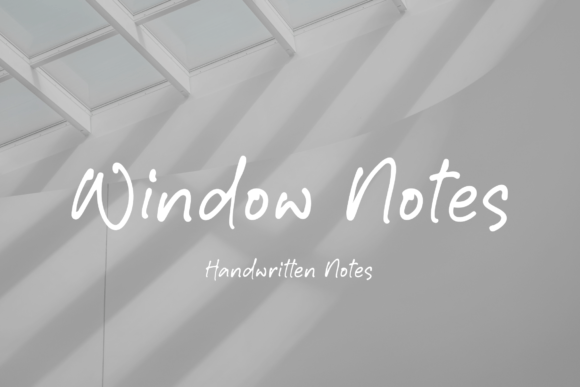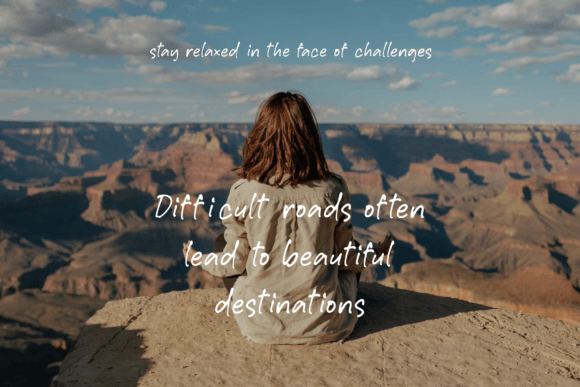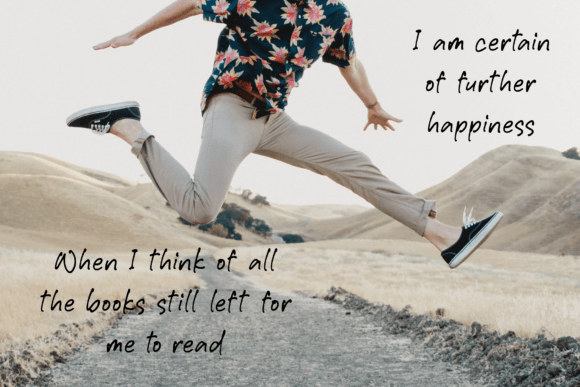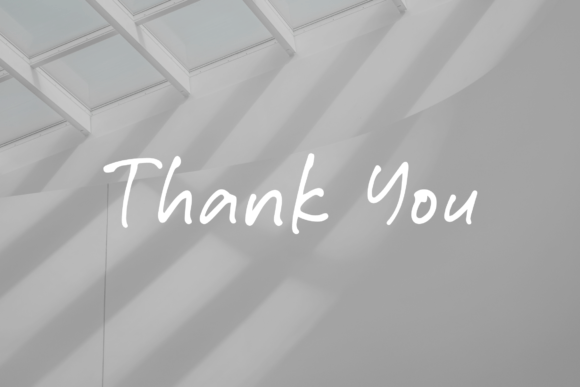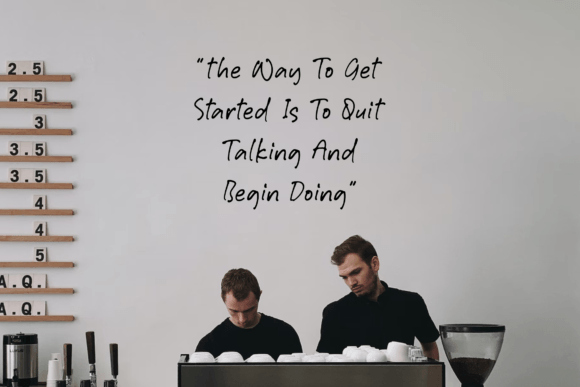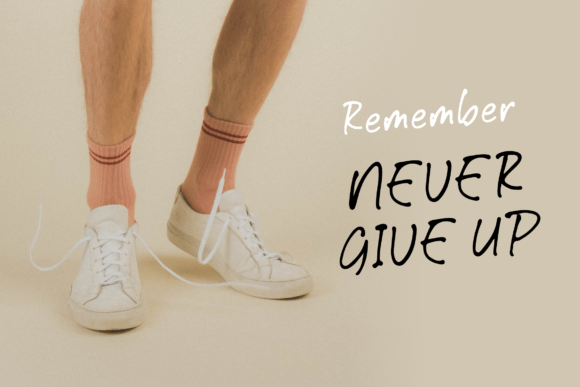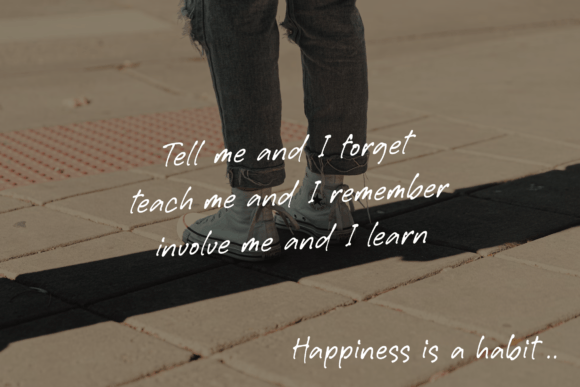
Window Notes Font
About Window Notes Font
Window Notes is a delightful and charming handwritten font that exudes a friendly and endearing vibe. Its versatility makes it a perfect choice for various creative endeavors, from crafting and digital design to presentations and greeting card creation. This font has the potential to become your ultimate favorite, suitable for any occasion!
The unique appeal of Window Notes lies in its friendly and cute script, which adds a touch of personality and warmth to your projects. Its playful strokes and carefully crafted characters create a visually appealing style that can easily adapt to different contexts.
Whether you’re working on crafts, Window Notes brings a sense of whimsy and creativity to your DIY projects. Its handwritten charm adds an authentic and personal touch to your creations, making them stand out and feel truly unique.
In digital design, this font is a versatile asset that can enhance the visual appeal of websites, social media graphics, and more. Its friendly demeanor helps convey approachability and creativity, making it a perfect choice for brands or content aiming to connect with their audience on a personal level.
For presentations, Window Notes adds a touch of informality while maintaining readability. It can make your slides feel more engaging and relatable, helping to capture your audience’s attention.
When it comes to greeting cards, this font is a natural choice for adding a cute and heartwarming touch to your messages. Whether it’s a birthday, thank you, or any other occasion, Window Notes makes your cards feel more personal and memorable.
In summary, Window Notes is a friendly and cute handwritten font that excels in various design contexts. Its adaptability and charming style make it a versatile choice for a wide range of projects. Whether you’re crafting, designing digitally, presenting, or creating greeting cards, Window Notes has the potential to become your favorite go-to font, infusing your work with a delightful and approachable vibe that resonates with your audience. Elevate your projects with Window Notes and watch as it adds a touch of warmth and creativity to every occasion!